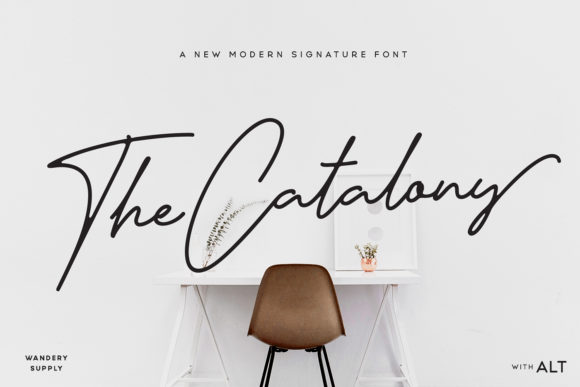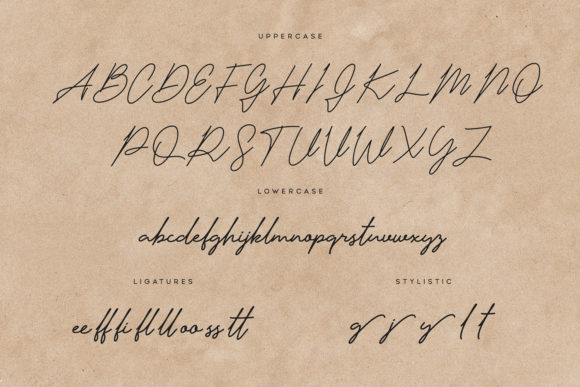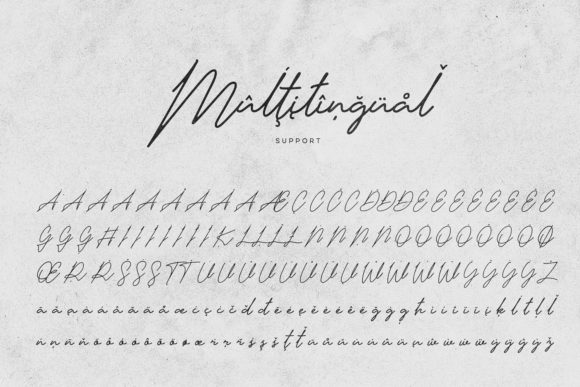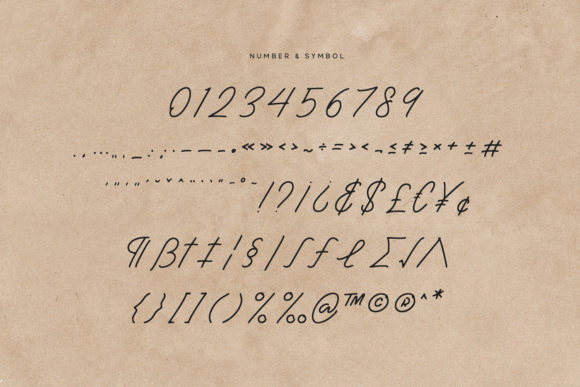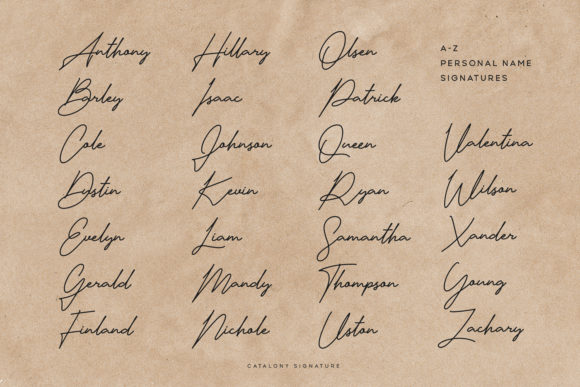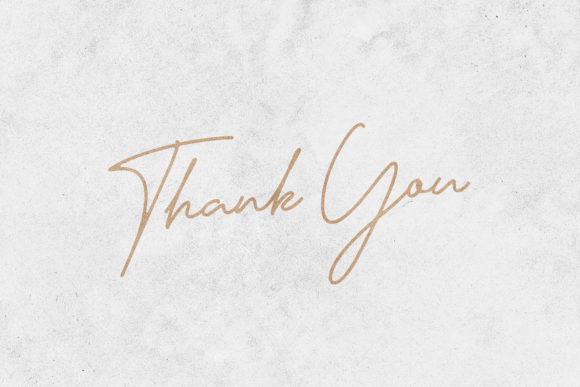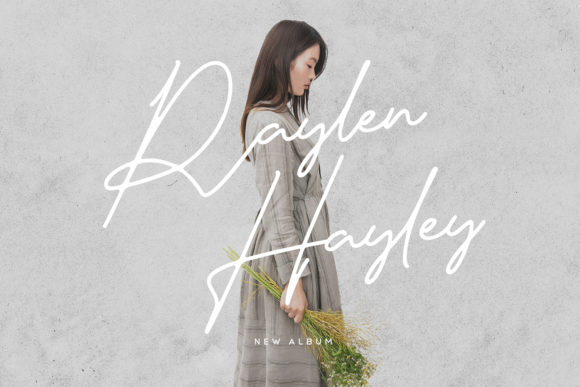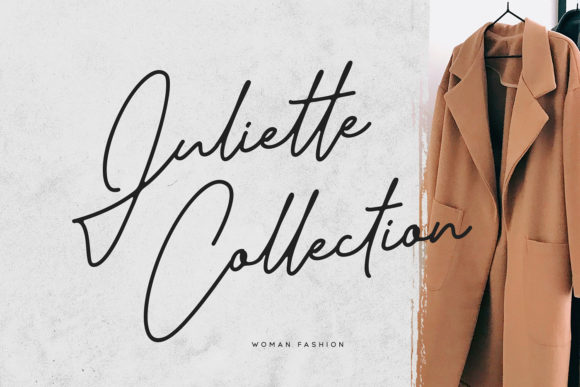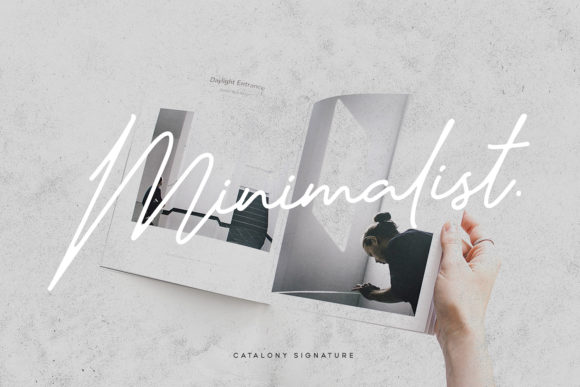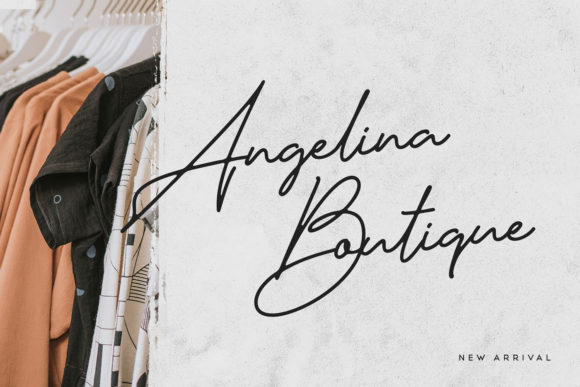
The Catalony Font
About The Catalony Font
The Catalony is a lovely handwritten font, with an incredibly relaxed and effortless style. Fall in love with its authentic feel and use it to create gorgeous wedding invitations, beautiful stationary art, eye-catching social media posts, and cute greeting cards.